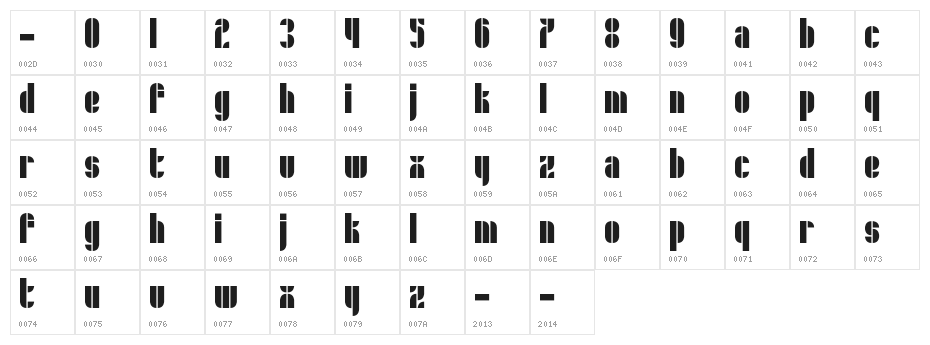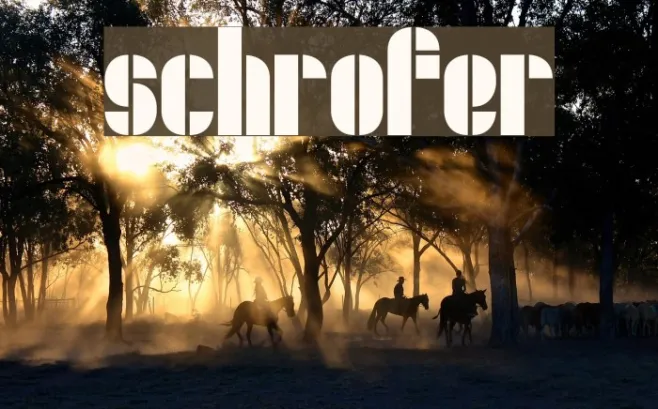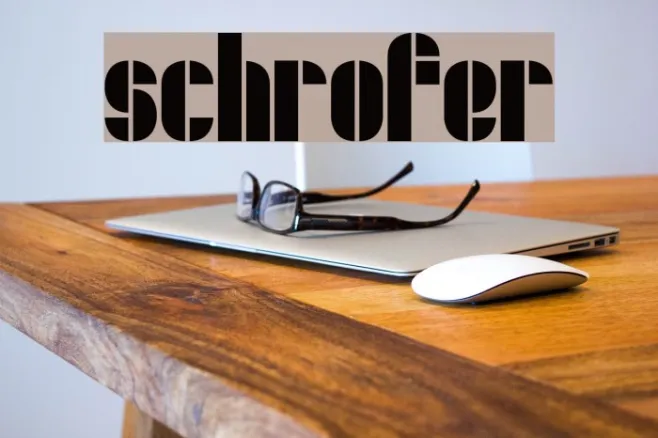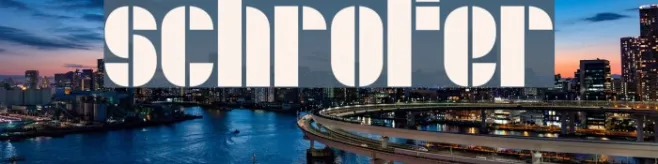
Schrofer Font
Schrofer Description
This font features a bold and striking design with a high contrast between thick and thin strokes. The characters are constructed with geometric precision, creating a modern and impactful appearance. The uppercase and lowercase letters maintain a consistent style, with rounded edges and a block-like structure. The numbers and special characters follow the same design principles, ensuring uniformity across all glyphs. This font's unique style makes it suitable for attention-grabbing headlines and creative projects.
| Proposed Projects | Ideal for branding, poster design, and editorial headlines. |